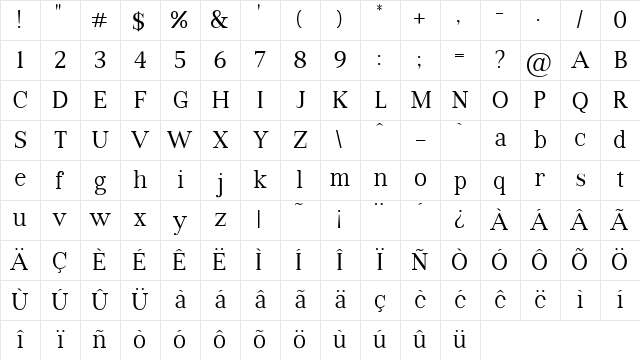
VIP Roman is a composed and adaptable typeface that performs quietly and consistently across a wide range of design contexts.
Pro Tip: Use VIP Roman in both headline and body roles to test its range before committing to a single application.